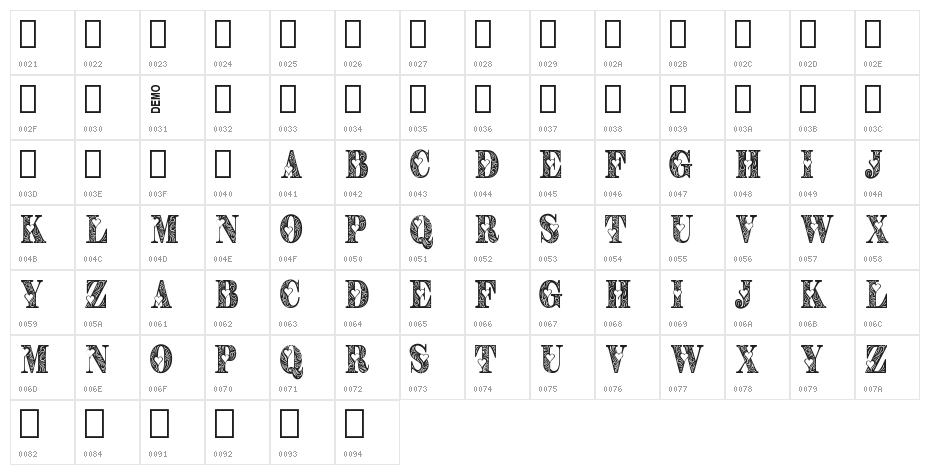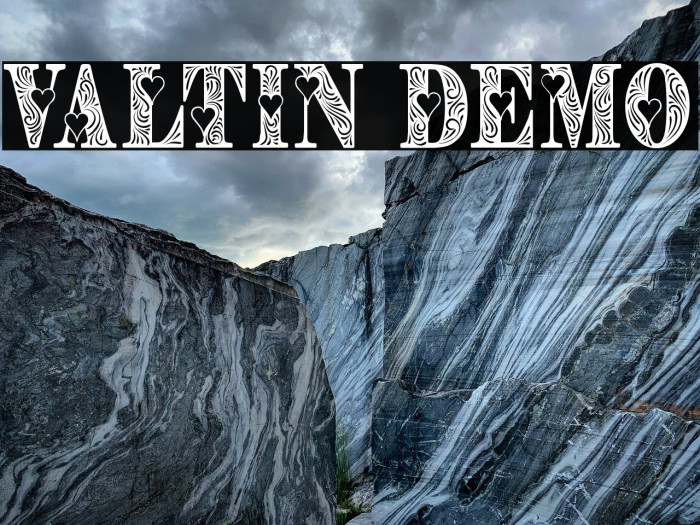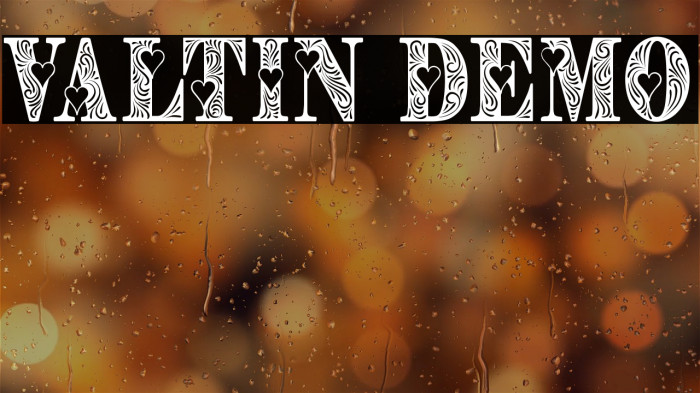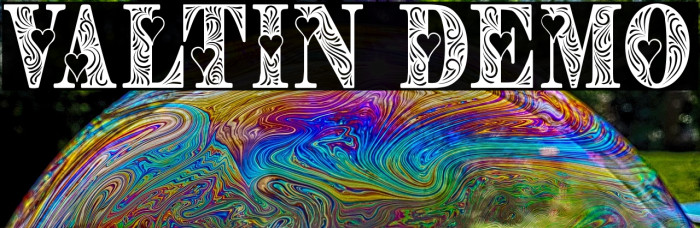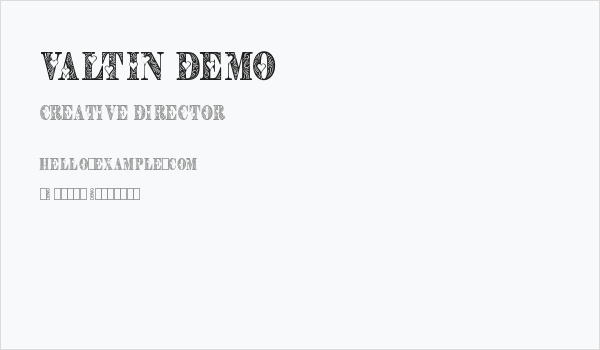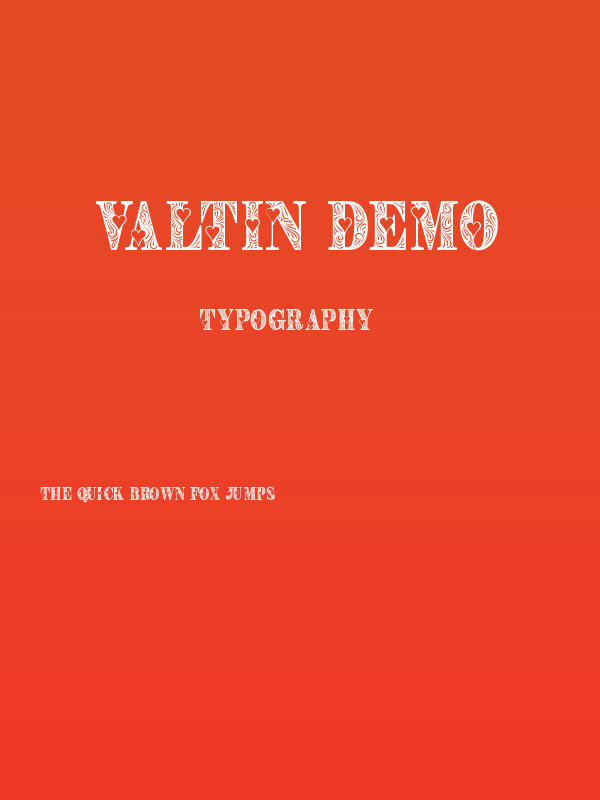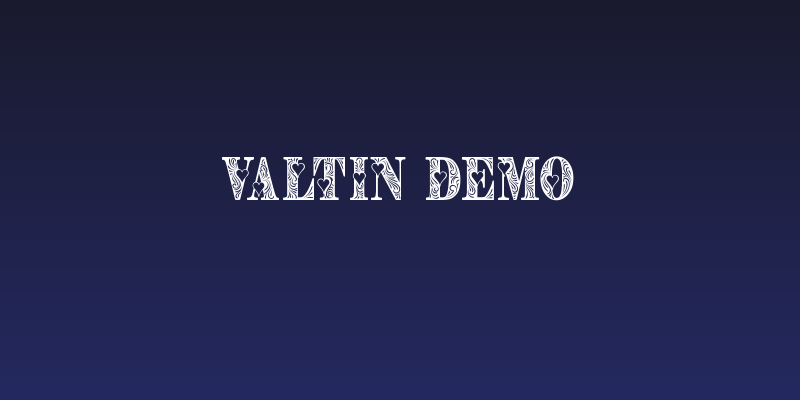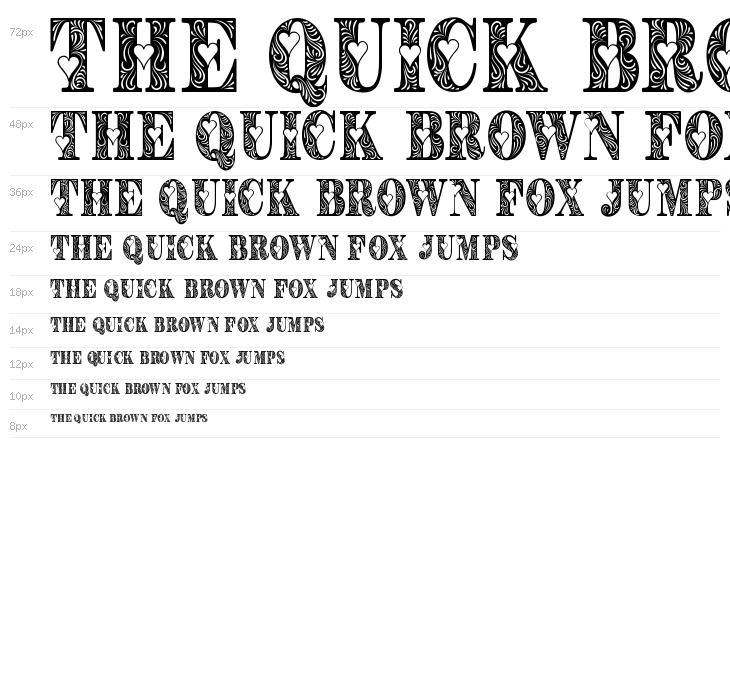
Valtin Demo Font
Valtin Demo Description
This decorative font features intricate, ornamental designs within each letter, creating a unique and artistic appearance. The uppercase letters are bold and eye-catching, with elaborate patterns that suggest a vintage or classical influence. The font's detailed embellishments make it ideal for projects that require a touch of elegance and sophistication. The characters are evenly spaced, ensuring readability despite the complex designs. This font is perfect for creating standout headlines, logos, or invitations that need a distinctive and artistic flair.
| Proposed Projects | Ideal for wedding invitations, vintage-themed posters, artistic logos, and decorative headlines. |